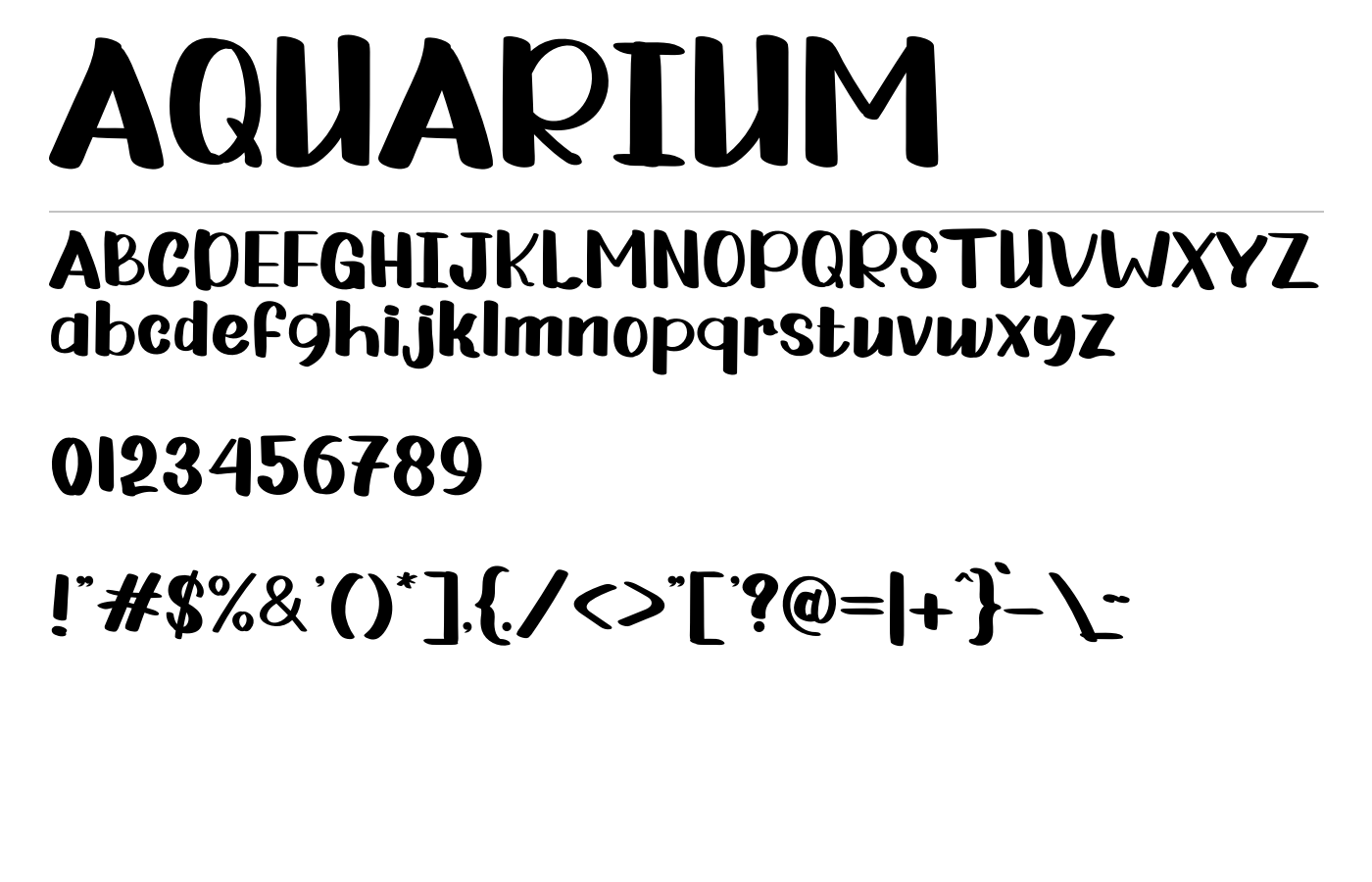
Aquarium is a playful and whimsical sans serif font with a hand-drawn, organic feel. Its bold weight, uneven strokes, and quirky letter shapes create a friendly and approachable personality, making it ideal for informal designs like children’s books, casual branding, or fun headlines. This font works best where a lively and expressive style is desired to capture attention and add a youthful, creative vibe.
AQUARIUM Font
About AQUARIUM Font
| Font family | AQUARIUM Font |
| Designer | Doni Dorra |